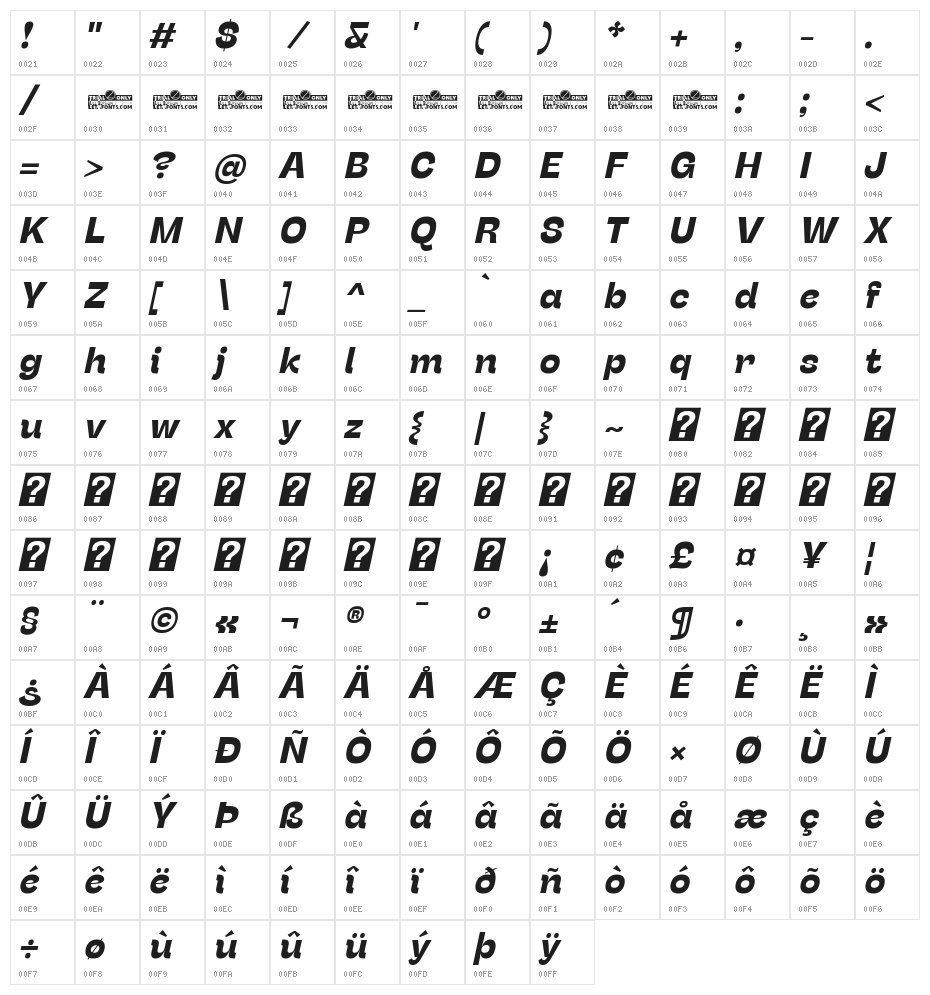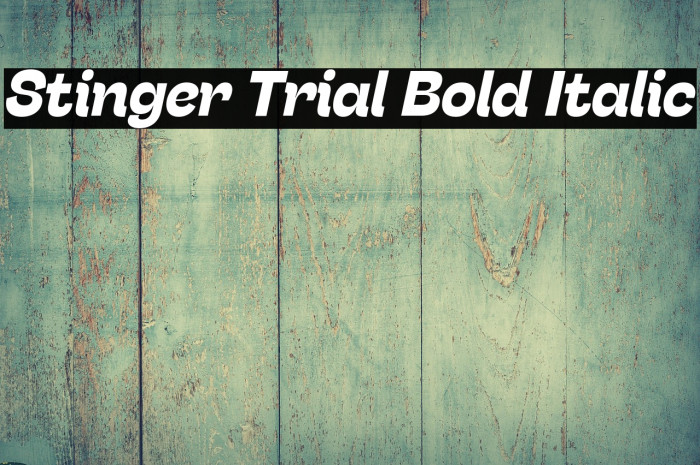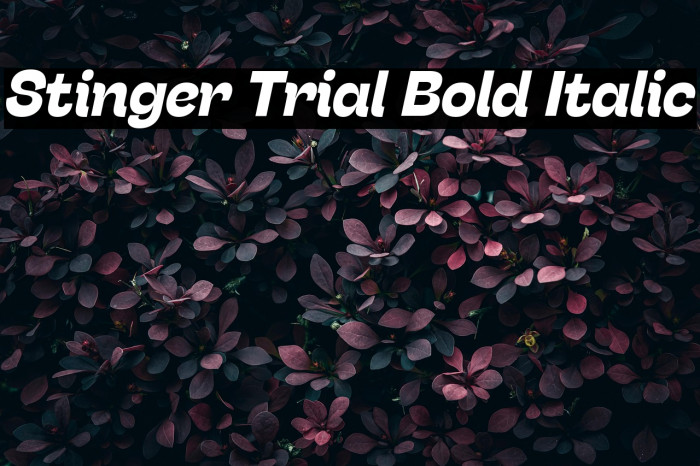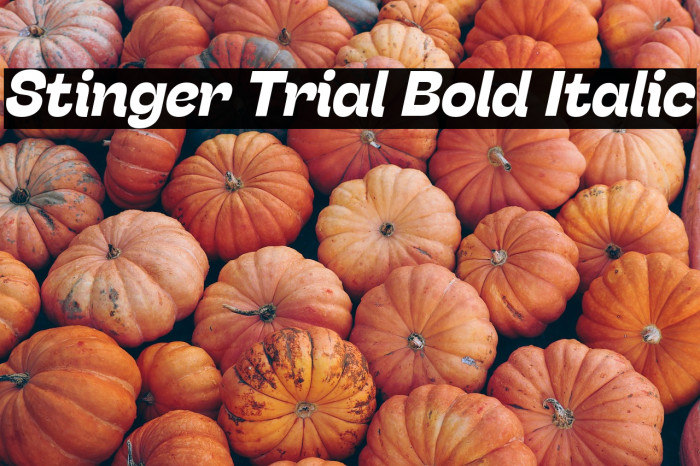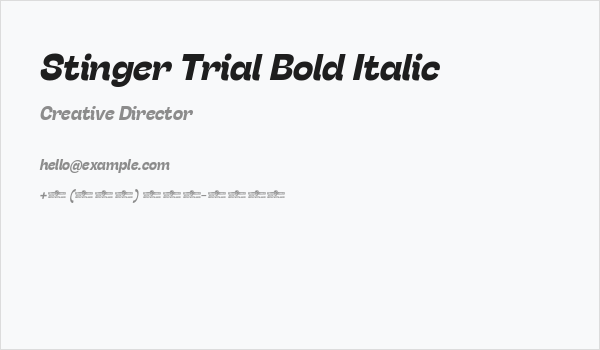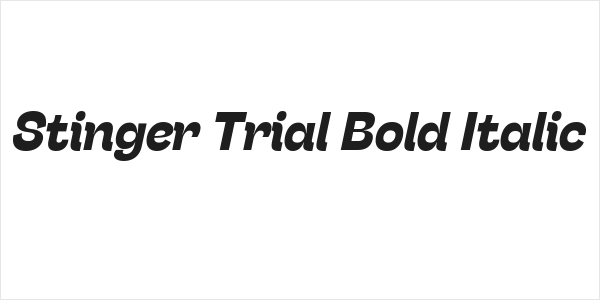
Stinger Trial Bold Italic Font
Stinger Trial Bold Italic Description
This font features a bold and italicized style, characterized by its strong and dynamic appearance. The letters are slightly slanted, giving a sense of motion and energy. The strokes are thick, providing a robust and impactful look, suitable for making statements. The uppercase and lowercase letters maintain a consistent style, with rounded edges that add a touch of softness to the overall boldness. The numerals and special characters are designed to match the bold and italicized theme, ensuring uniformity across all text elements.